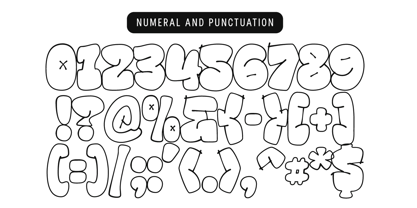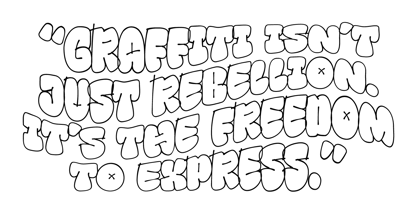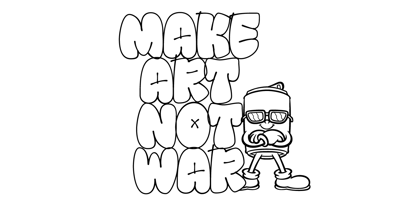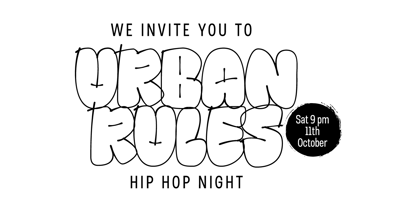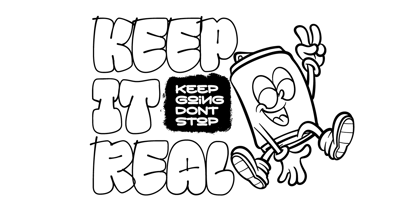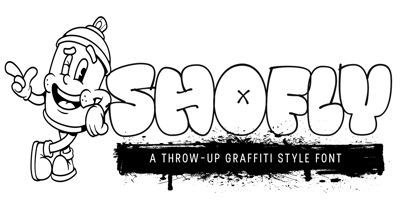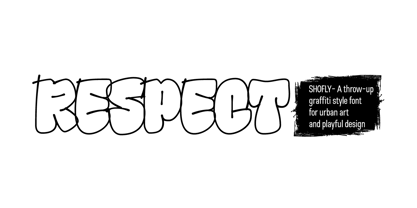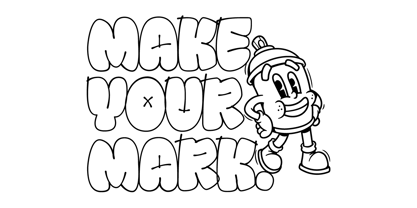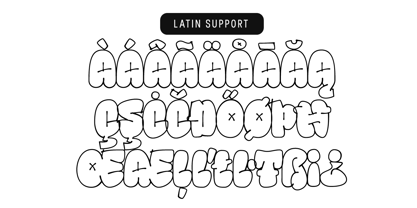
Shofly
by MMMA Creative
The Shofly Font Family was designed by Muhammad Ridha Agusni, Muhammad Mevlana Maliq Azizi and published by MMMA Creative. Shofly contains 1 styles. More about this family
Shofly is a bold and playful throw-up graffiti style font that captures the raw energy of street art. Each letter is drawn with soft, inflated strokes that resemble bubble graffiti tags, making it instantly recognizable and full of character. Its rounded edges and expressive shapes bring a sense of movement and fun while maintaining the authenticity of hand-drawn urban lettering. Designed as an all-caps display font, Shofly is ideal for hip-hop posters, streetwear branding, album covers, event flyers, and any creative project that embraces freedom and individuality. It also supports numerals, punctuation, and Latin accents for multilingual use. Whether you’re creating bold headlines or playful designs, Shofly adds a touch of rebellion, rhythm, and respect to every composition. It is a celebration of graffiti culture and self-expression.
Designers: Muhammad Ridha Agusni, Muhammad Mevlana Maliq Azizi
Foundry: MMMA Creative